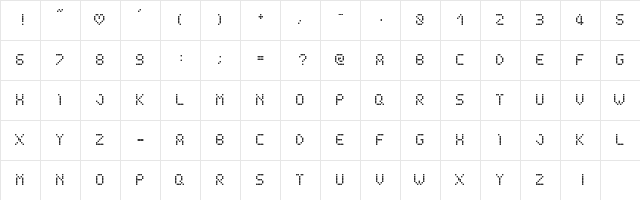
schnee Regular
Design Context for schnee Typeface
schnee is a composed and adaptable typeface that performs quietly and consistently across a wide range of design contexts.